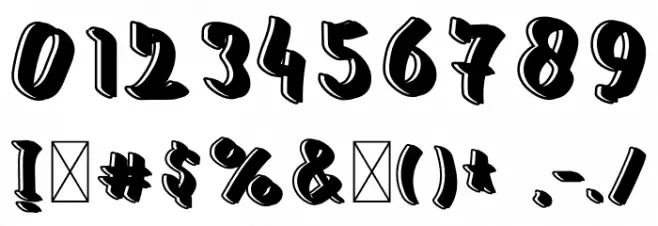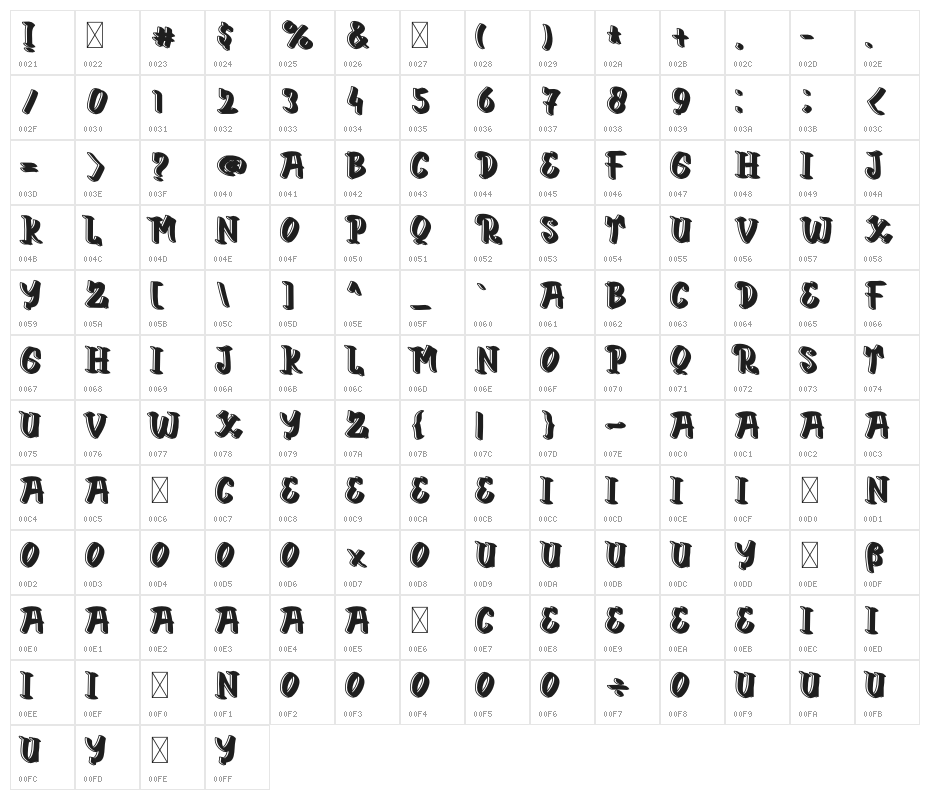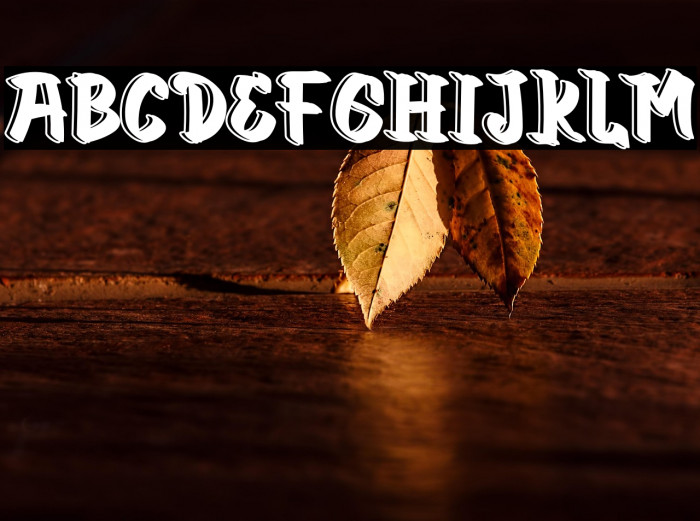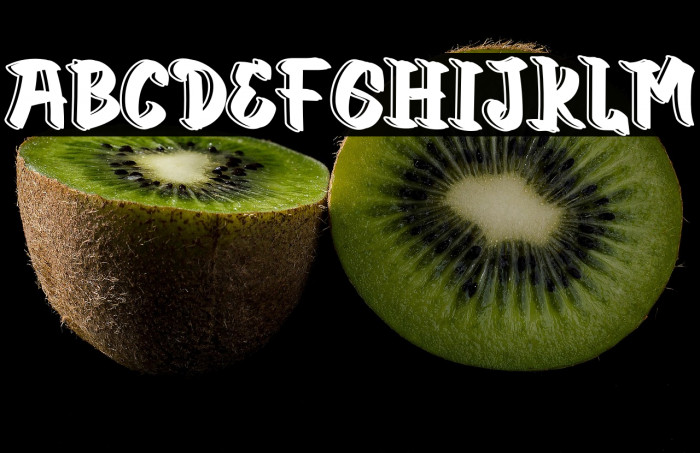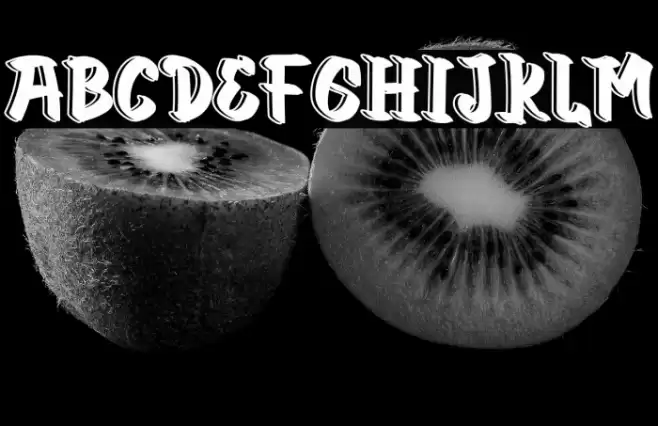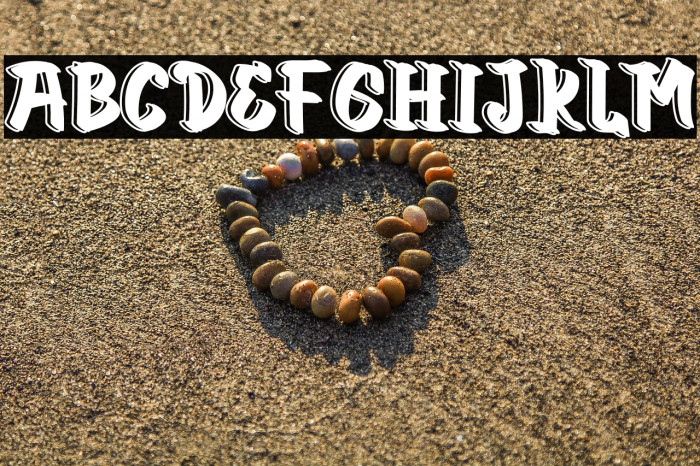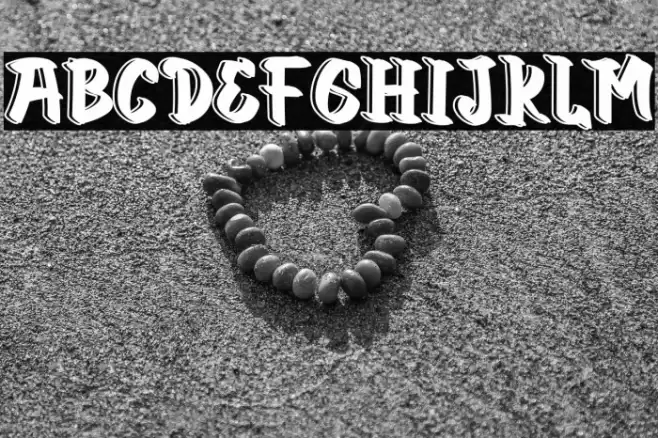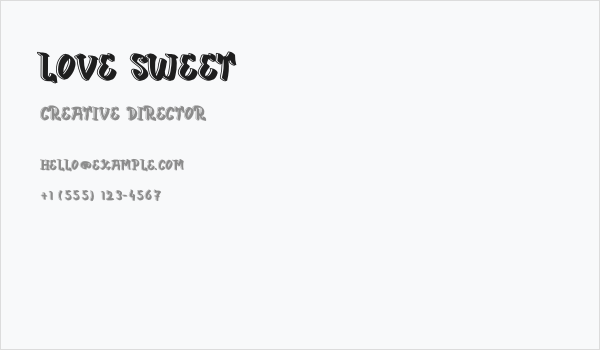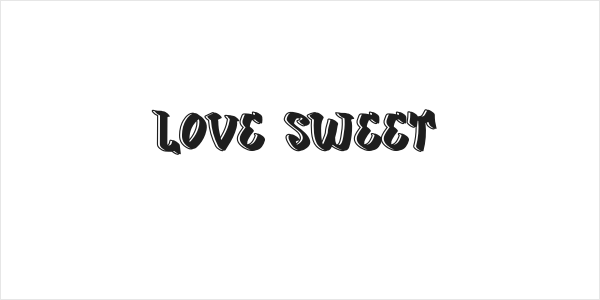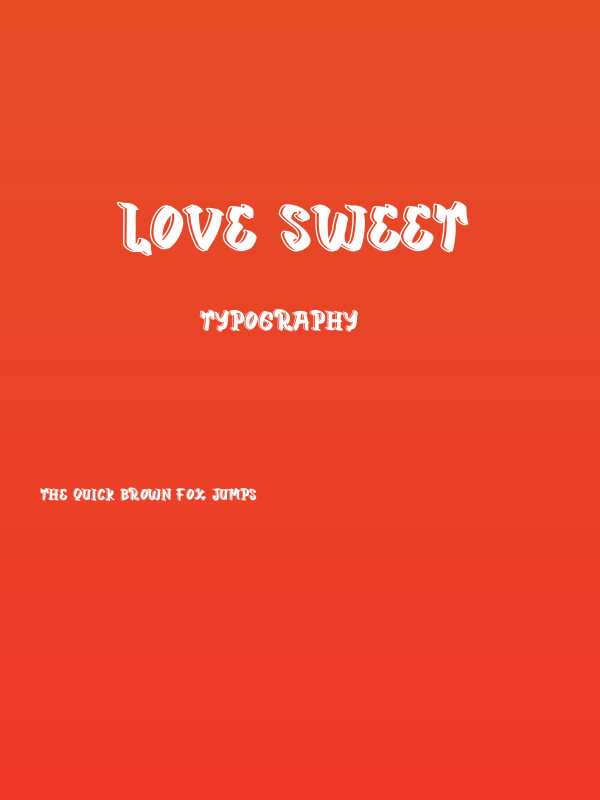
Love Sweet Font
Love Sweet Description
This font features a bold and playful design with a strong presence. The characters have a three-dimensional effect, with thick strokes and shadowing that give them depth. The style is reminiscent of graffiti or street art, with a lively and energetic feel. The uppercase and lowercase letters maintain a consistent style, with rounded edges and a slightly condensed form. The numbers and special characters follow the same bold and dynamic aesthetic, making the font suitable for eye-catching designs.
| Proposed Projects | Ideal for posters, logos, street art designs, and any project requiring a bold and energetic typeface. |